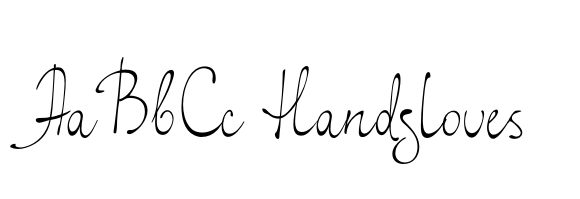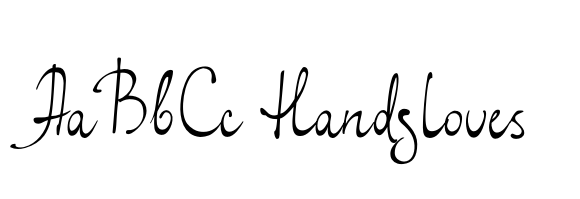
Signature of Incognito
von Innire
Die Schriftfamilie Signature of Incognito wurde von Polina Chistyakova entworfen und von Innire veröffentlicht. Signature of Incognito enthält 2 Stile und Familienpaketoptionen. Mehr über diese Familie
Signature of incognito is a handwriting script font, that was created using a fountain pen. Diacritical symbols and glyphs allow you to use the font not only for Latin. Ligatures and swashes diversify the text and can be applied to design cards, logos, clothing design, wedding invitations, and much more
Designer: Polina Chistyakova
Foundry: Innire
Polina Chistyakova is a font designer who came to her profession through a passion for calligraphy. The sense of composition, honed during university studies in art, helps to create fonts with features and some plant elements that fit perfectly into the concept. Inspiration comes from natural motifs and serves as the basis for creating original fonts